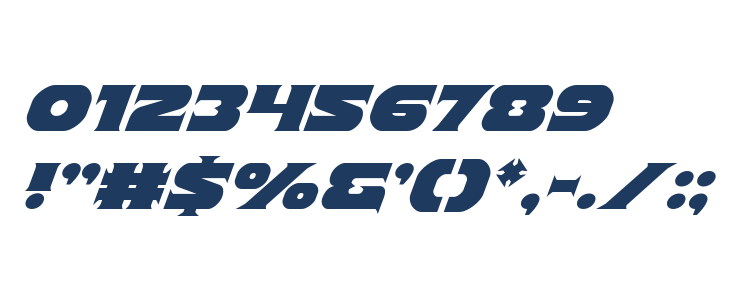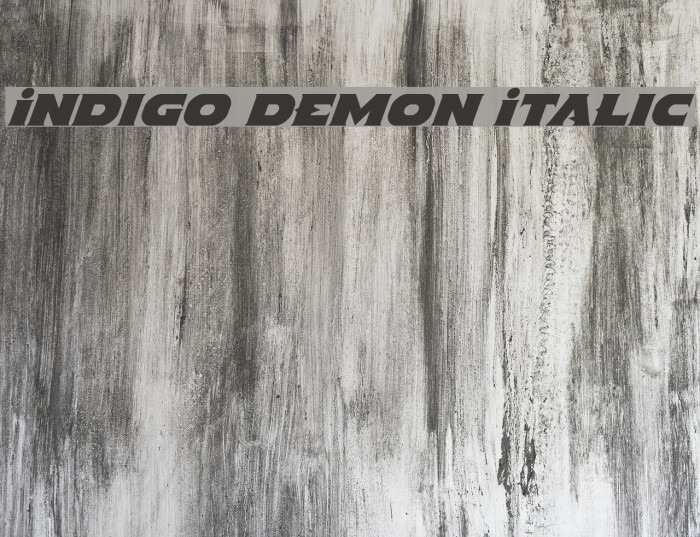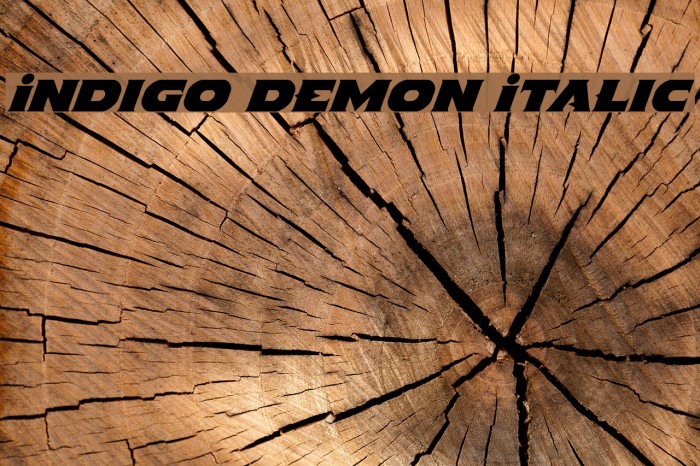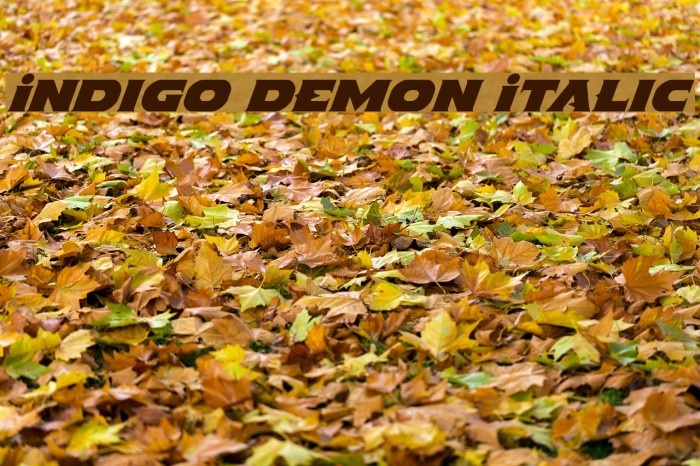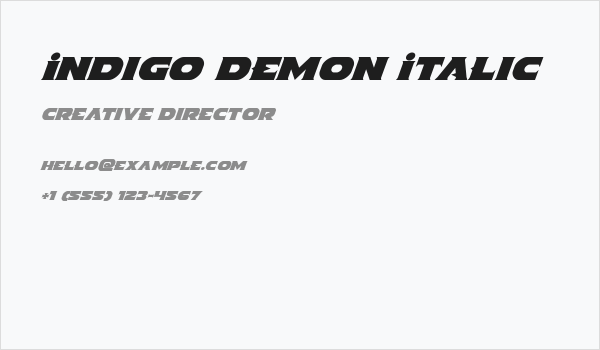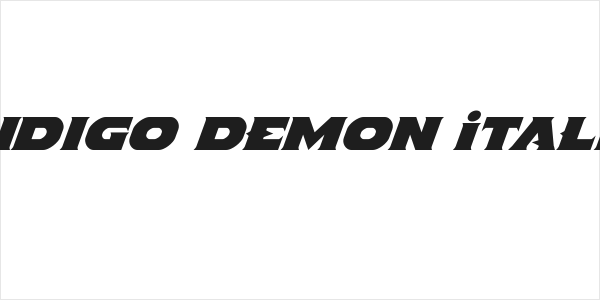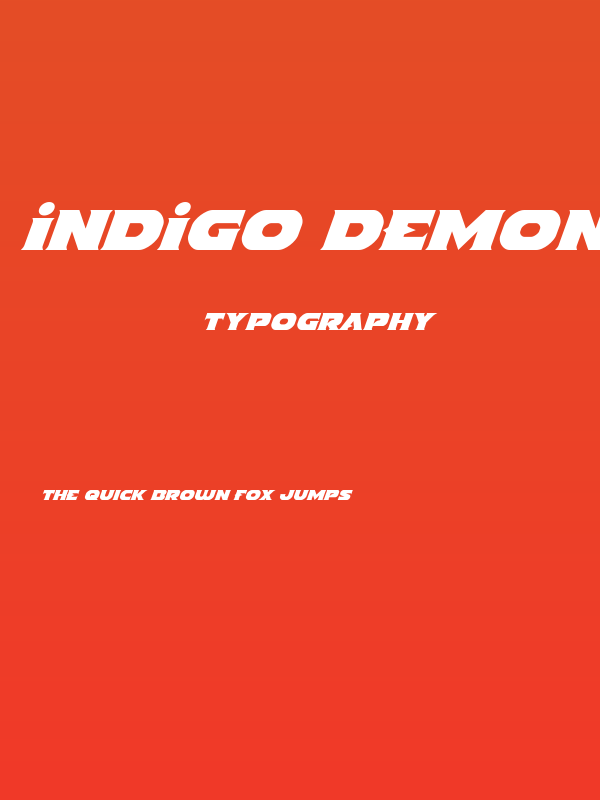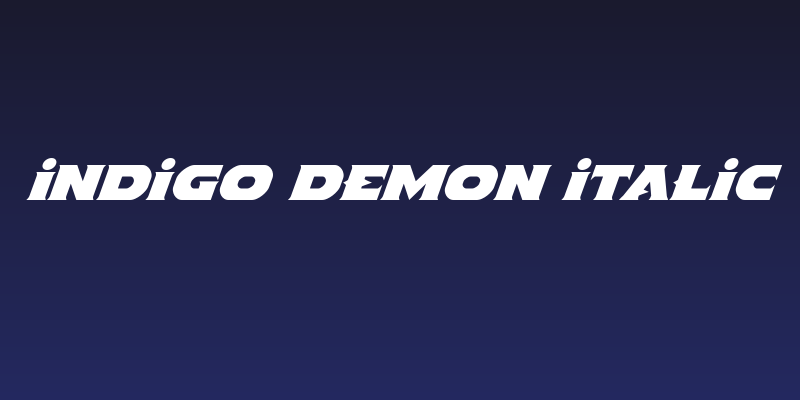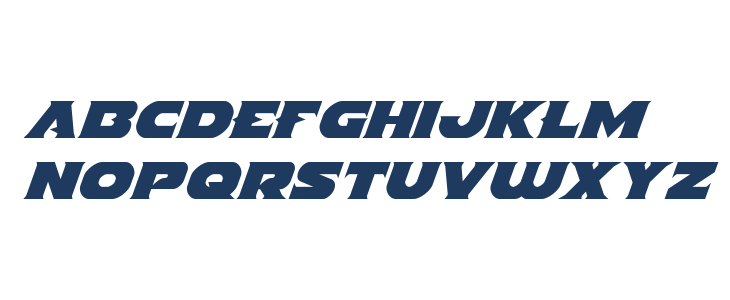
Indigo Demon Italic Font
Indigo Demon Italic Description
This font features a bold and dynamic style with a strong italic slant, giving it a sense of motion and energy. The characters are thick and robust, with sharp angles and a slightly condensed form that enhances its aggressive appearance. The uppercase and lowercase letters maintain a consistent design, with the lowercase mirroring the uppercase in style. Numbers and special characters are equally bold and cohesive, making the font suitable for impactful designs. The overall look is modern and assertive, ideal for projects that require a strong visual presence.
Proposed ProjectsIdeal for sports branding, action movie posters, video game titles, and dynamic logos.